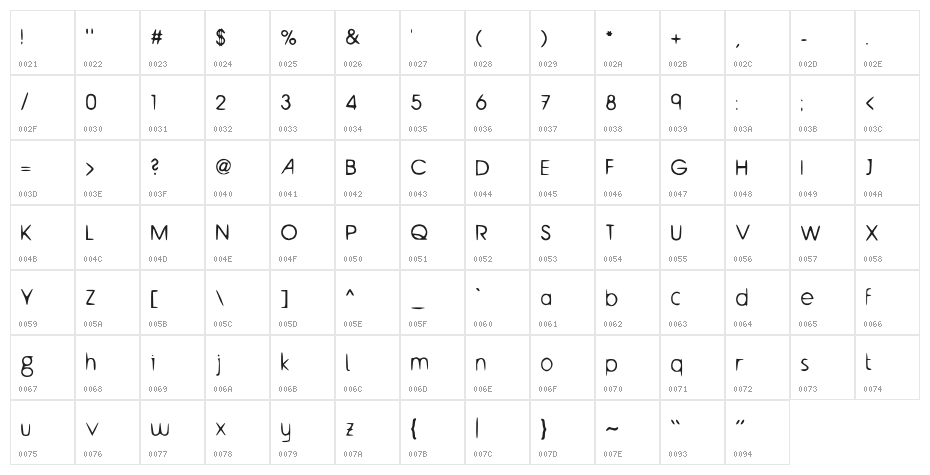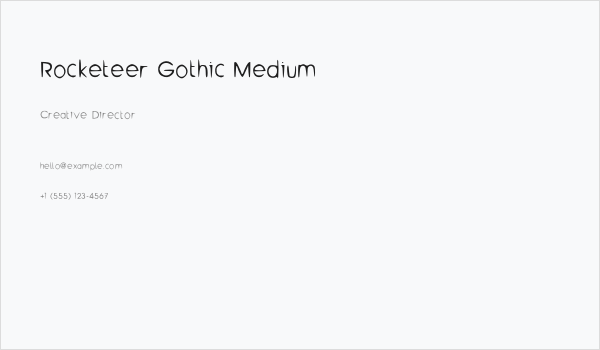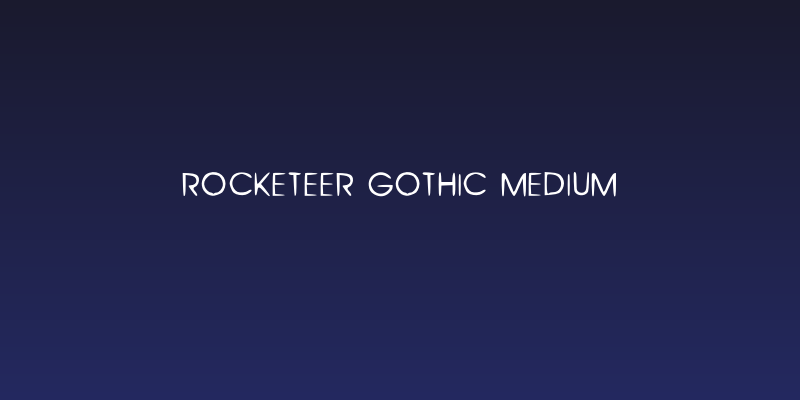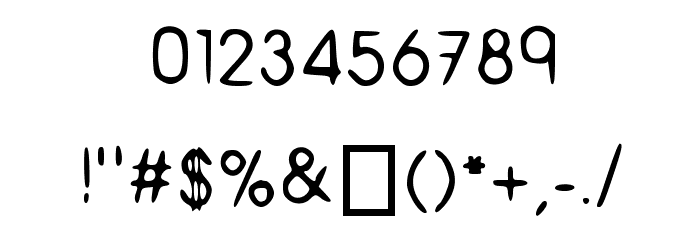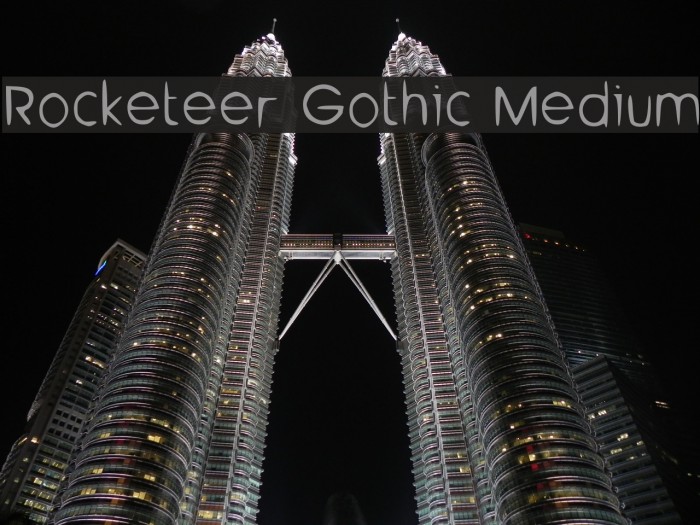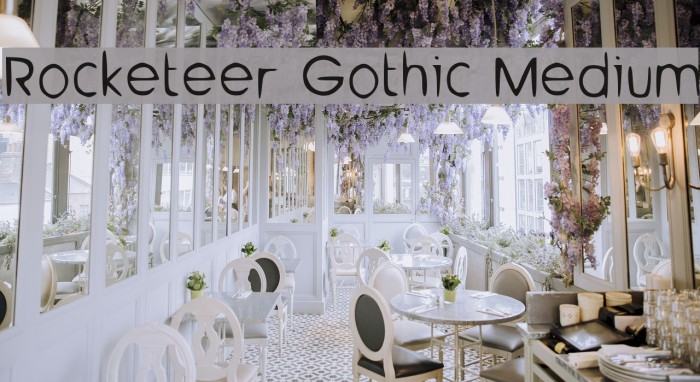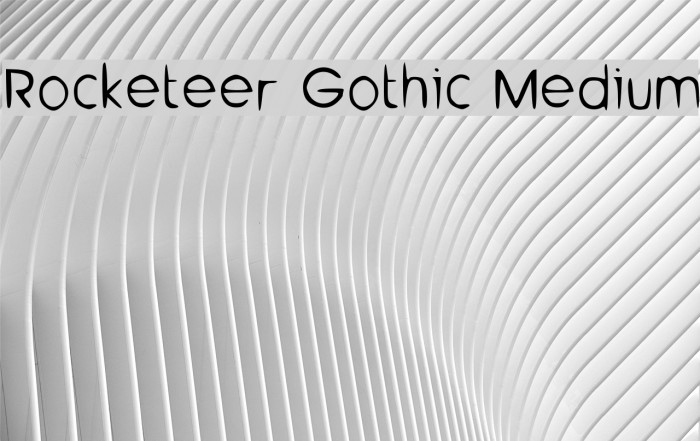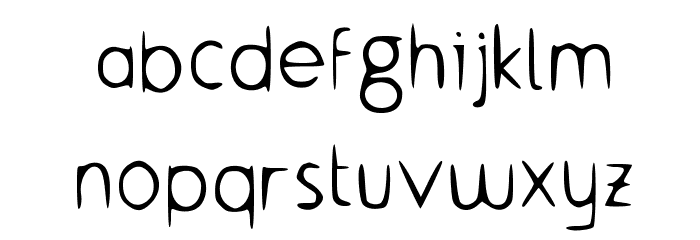
Rocketeer Gothic Medium Font
Rocketeer Gothic Medium Description
This font features a unique blend of modern and vintage styles, characterized by its distinctively rounded and slightly elongated letterforms. The uppercase letters exhibit a bold presence with a slight curvature that adds a touch of elegance, while the lowercase letters maintain a consistent flow with subtle variations in stroke width. The numerals are crafted to match the overall aesthetic, providing a harmonious balance between the characters. Special characters are designed with a playful yet sophisticated flair, making them suitable for a variety of creative applications. The font's overall appearance is both eye-catching and versatile, making it ideal for projects that require a distinctive and memorable typographic presence.
| Overall Style | Modern, Vintage |
| Proposed Projects | Ideal for branding, poster design, book covers, and creative digital media projects. |